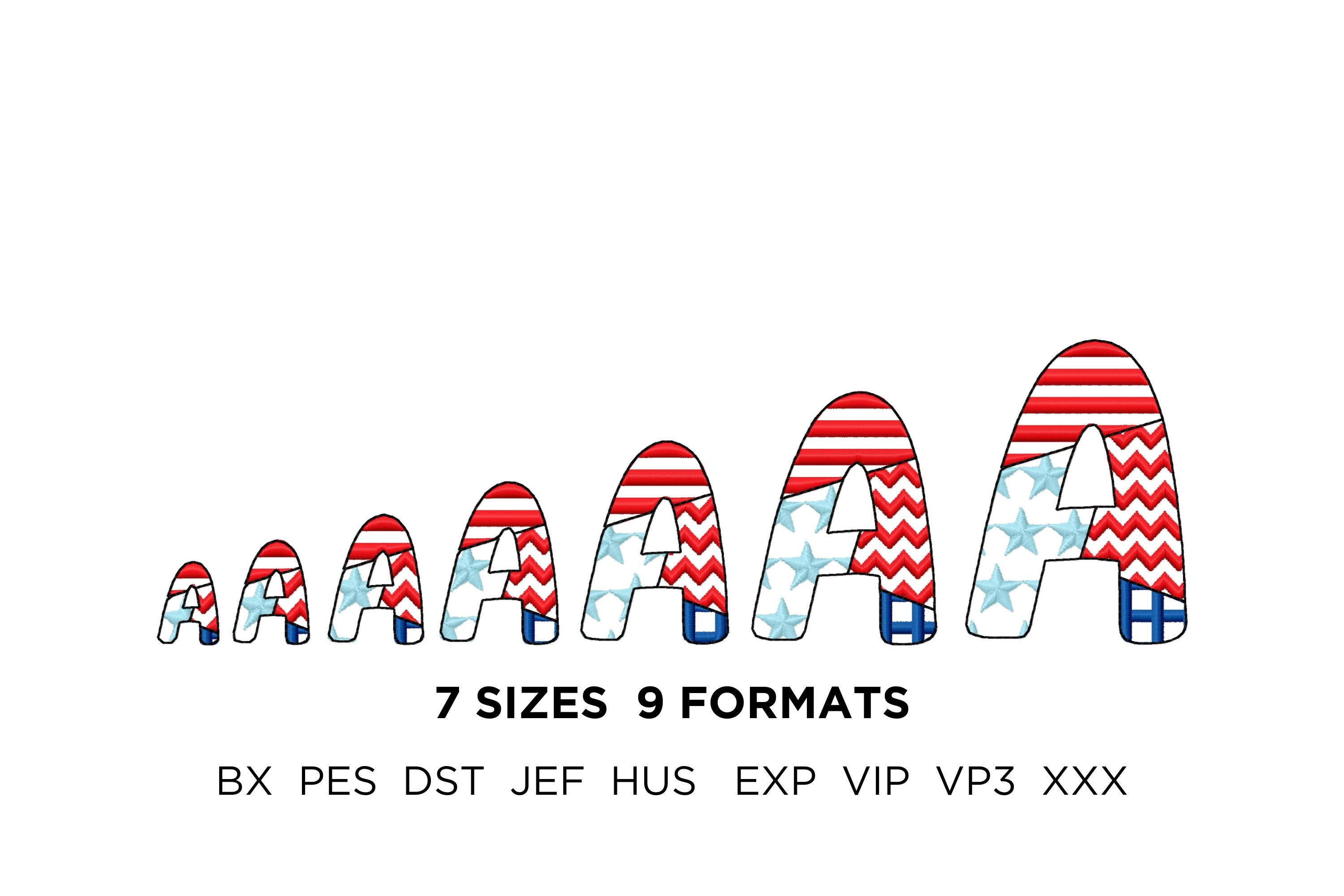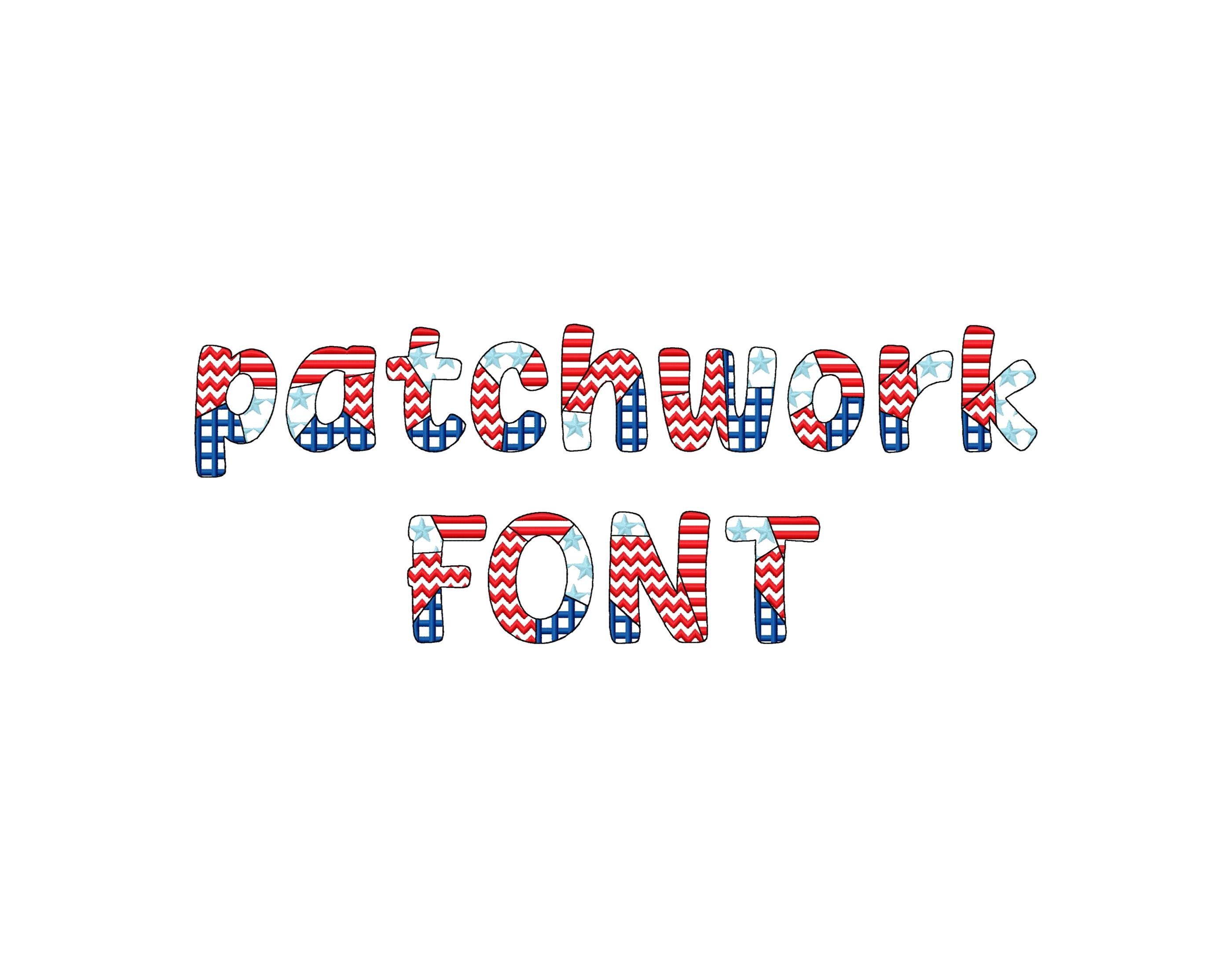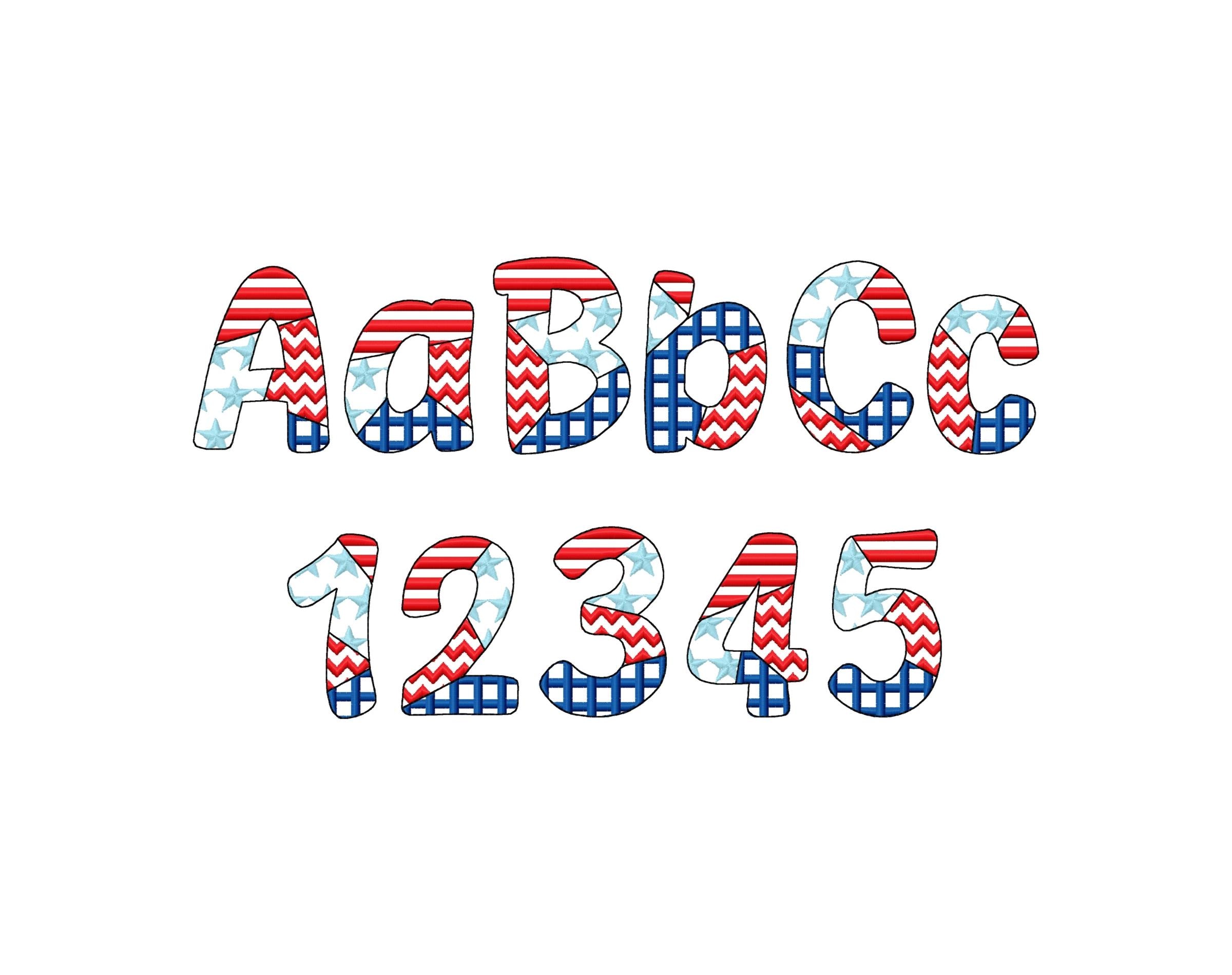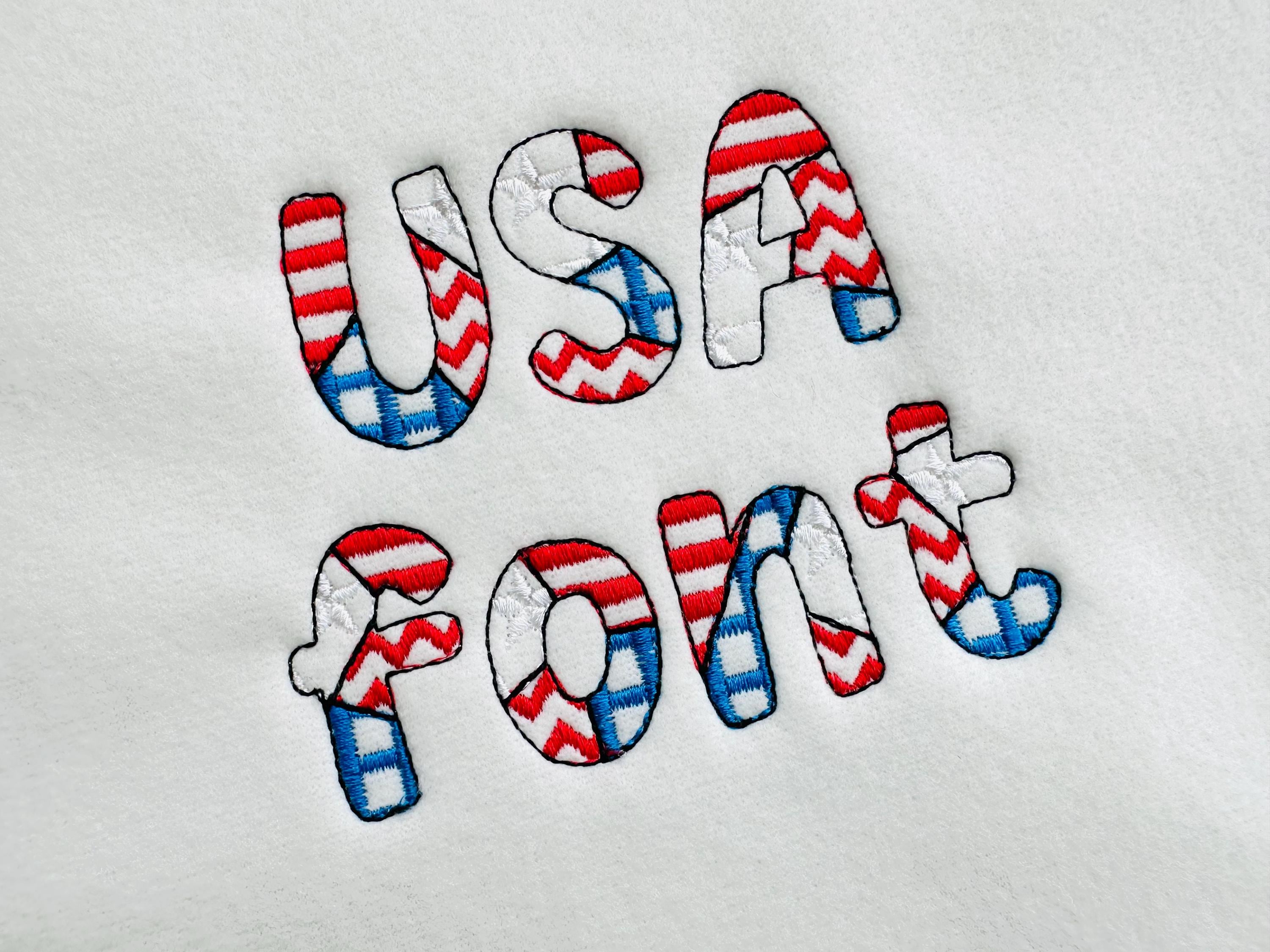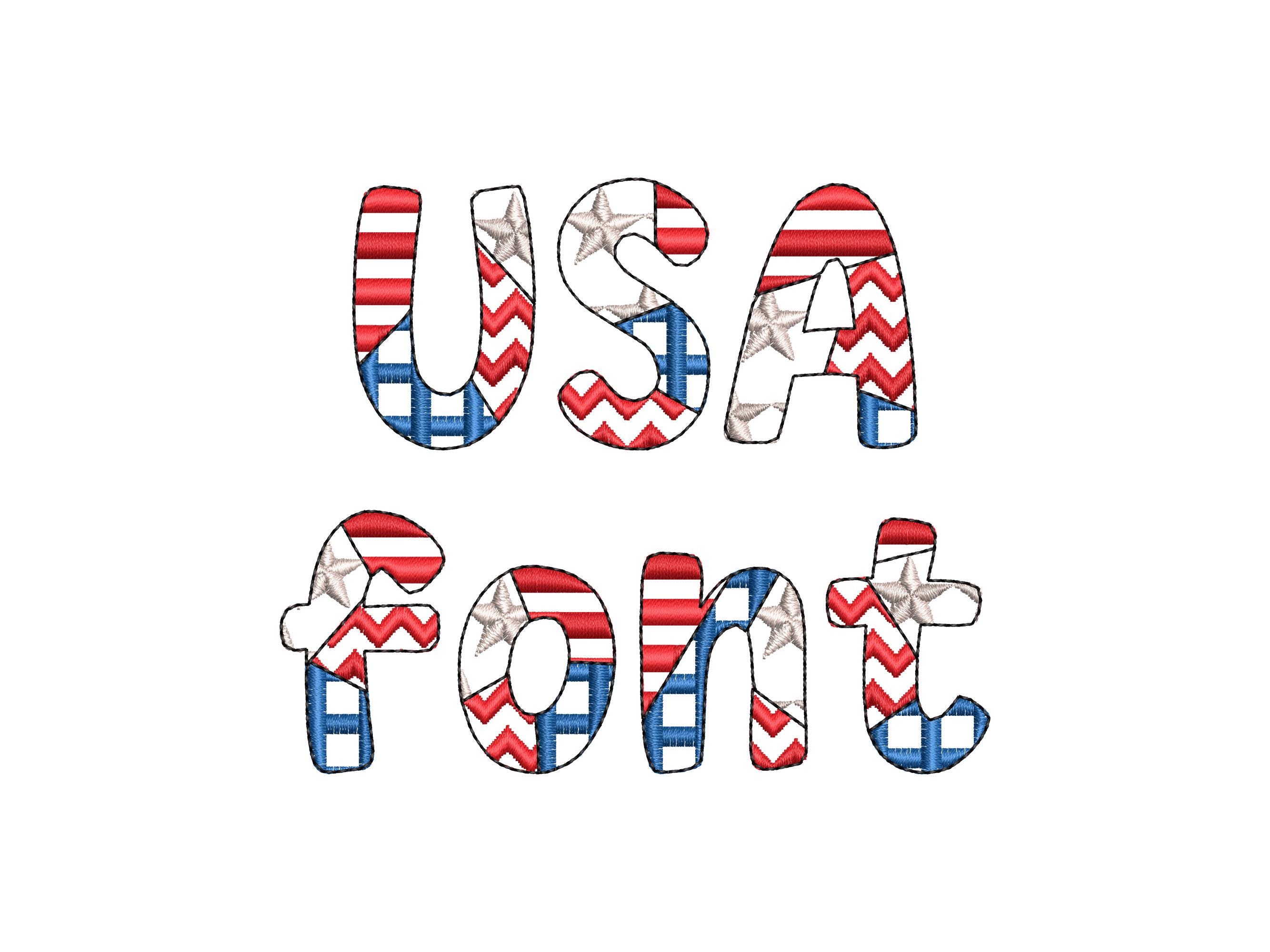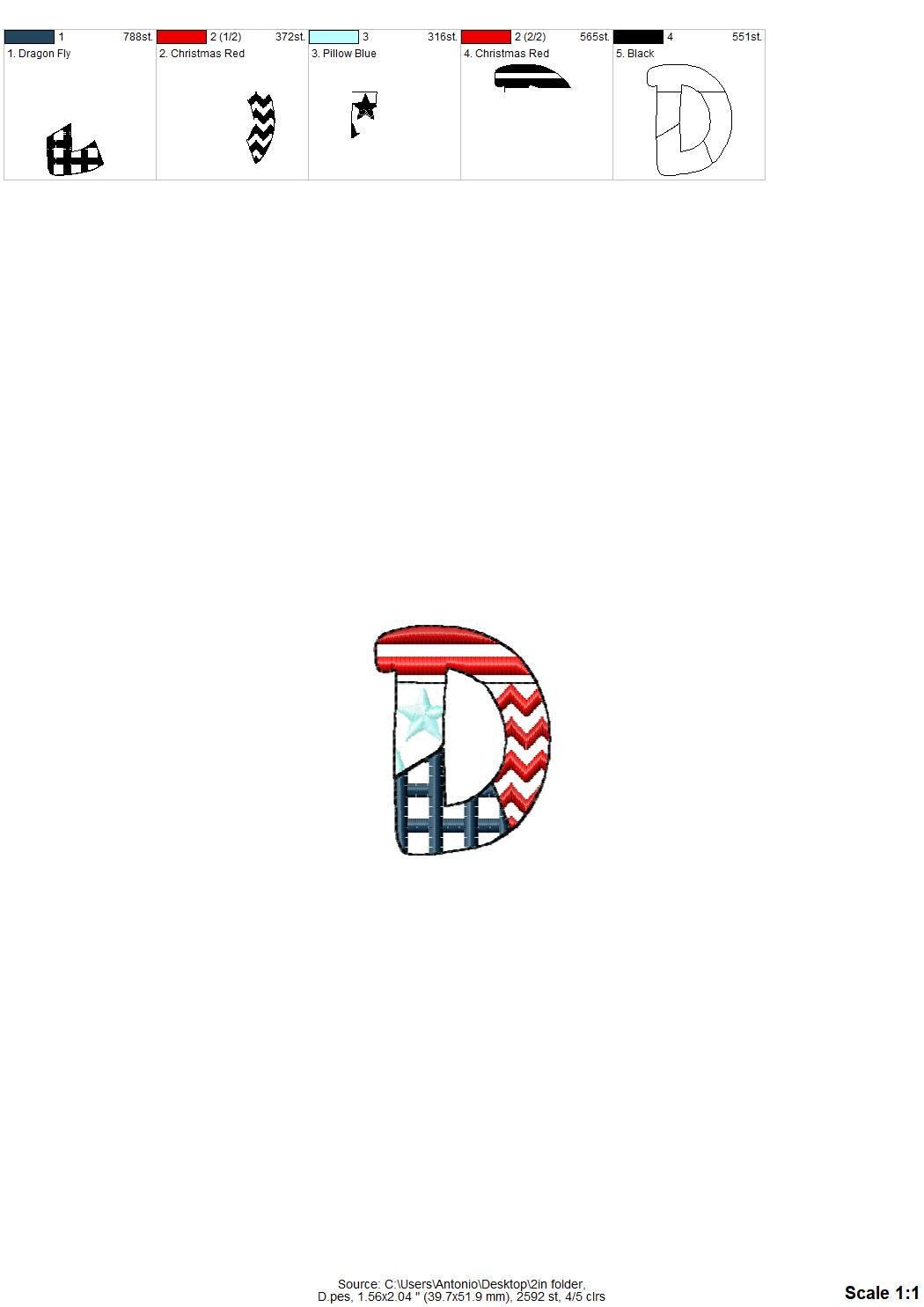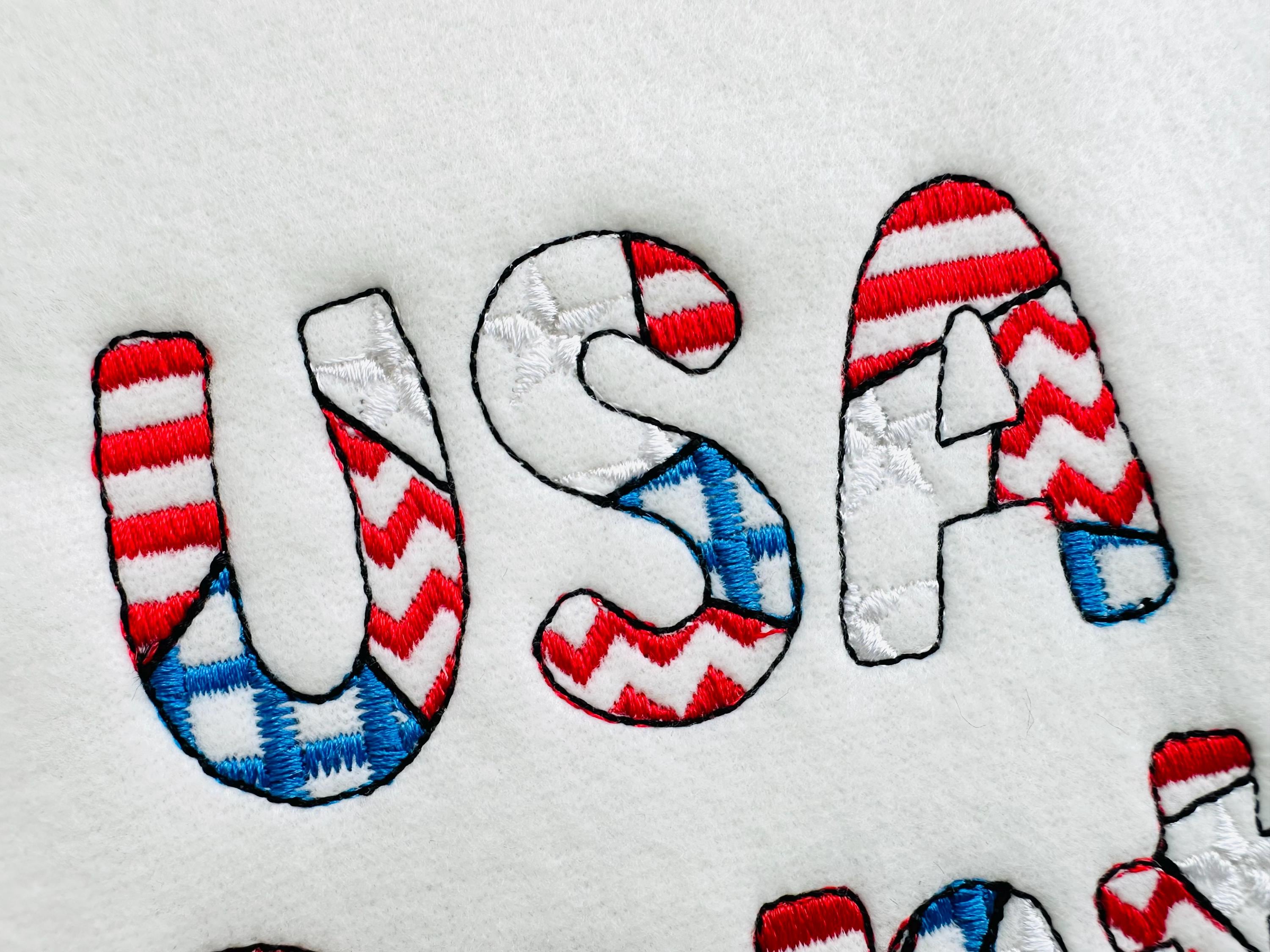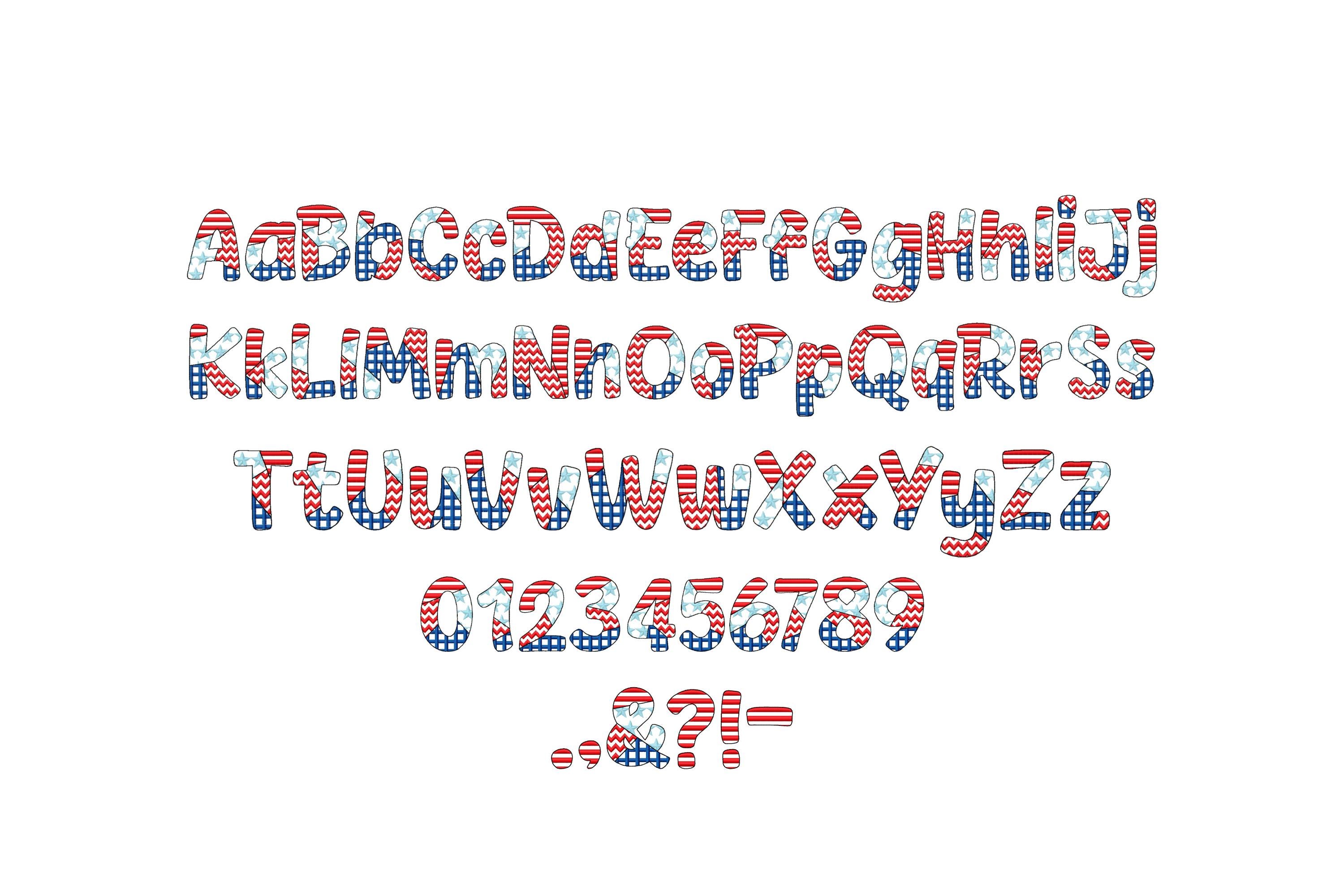
Patchwork USA flag FONT patterned and outline alphabet monogram letters patriotic machine embroidery designs small sizes 0.8 up to 3 inch
Whole alphabet Aa-Zz uppercase and lowercase letters, numbers 0-9, and punctuation.
Patterns are part of the embroidery. The font is transparent, and the fabric looks through. Stunning effect!